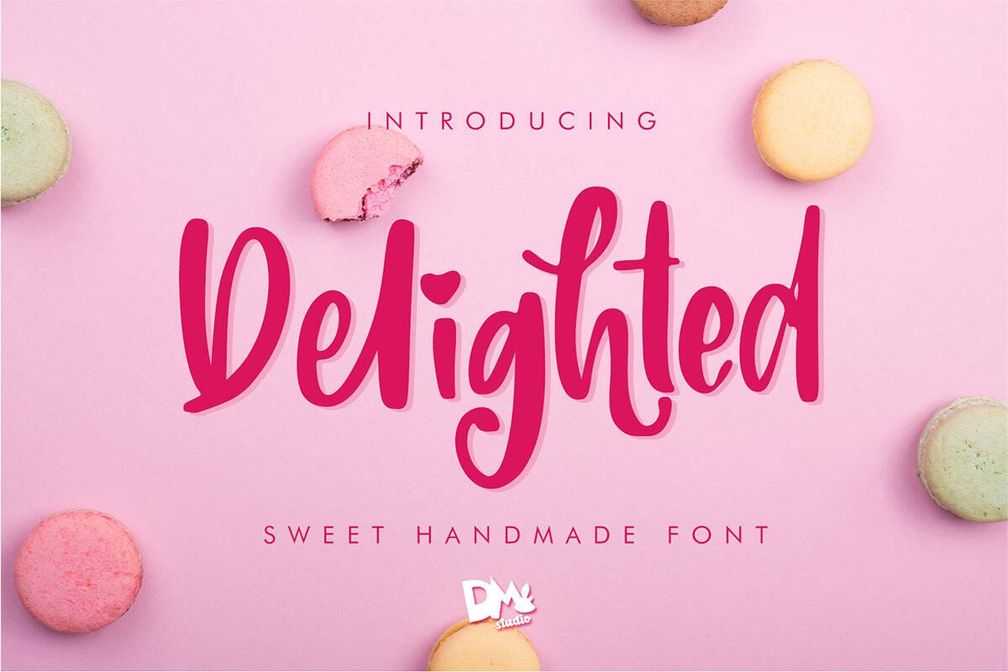
Delighted Sweet Handmade Font
The Delighted Sweet Handmade Font is a charming and whimsical typeface that embodies the essence of handmade craftsmanship and joy. With its delightful letterforms and playful design, this font adds a touch of sweetness and warmth to your designs, making it perfect for crafts, logos, packaging, and other creative projects.
1. Whimsical and Handmade Style: The Delighted Sweet Font exudes a whimsical and joyful aesthetic. Its handcrafted letterforms and playful design capture the essence of creativity and happiness, creating a delightful and inviting look for your designs.
2. Handmade Appeal: The font emulates the authentic and unique qualities of handmade craftsmanship, adding an artisanal touch to your designs. It celebrates the imperfections and organic nature of handmade creations, creating a distinct and personal feel.
3. Versatile Application: This font is versatile and well-suited for various design projects that aim to evoke a sense of joy and handmade authenticity. Use it in crafts, logos, packaging, greeting cards, social media graphics, and more to add a touch of sweetness and warmth to your designs.
4. Uppercase and Lowercase Letters: The font includes both uppercase and lowercase letters, providing flexibility and creative freedom in your designs. Mix and match the cases to create visually appealing and balanced typography.
5. Ligatures and Stylistic Alternates: The Delighted Sweet Font offers a selection of ligatures and stylistic alternates that enhance the visual interest of your text. These special characters create unique connections between letters and alternate forms, allowing you to create playful and expressive typography.
6. Punctuation and Symbols: In addition to the alphabet, the Delighted Sweet Font includes a comprehensive set of punctuation marks, numerals, and common symbols. This ensures consistency and ease of use when incorporating the font into your design projects.
Infuse your designs with the whimsical and handmade charm of the Delighted Sweet Handmade Font. Let its delightful letterforms and playful design bring a touch of sweetness and warmth to your crafts, logos, and packaging. Embrace the artistic beauty of this font and create designs that celebrate creativity and joy.